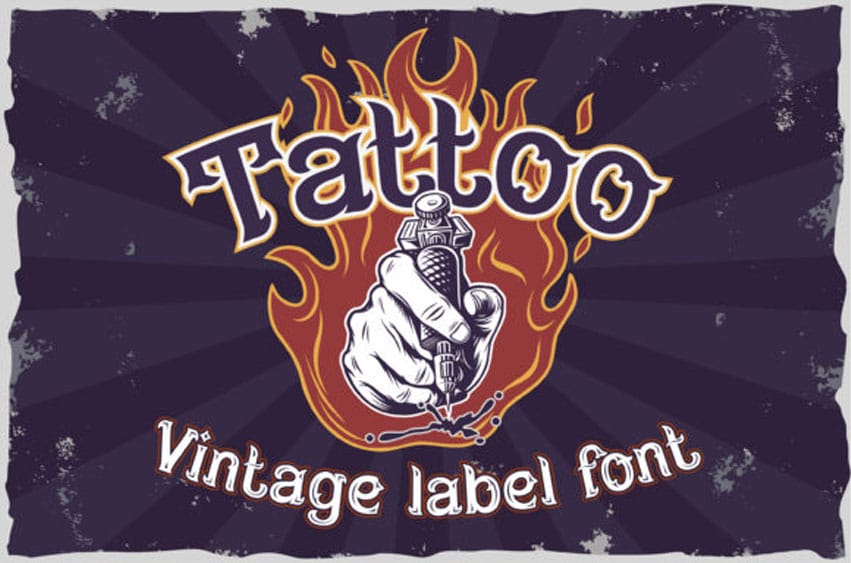
Fire Needle Font is an awesome, bold, western display font that will fit perfectly on each of your designs.
Have fun with this beautiful font and explore its endless variations.